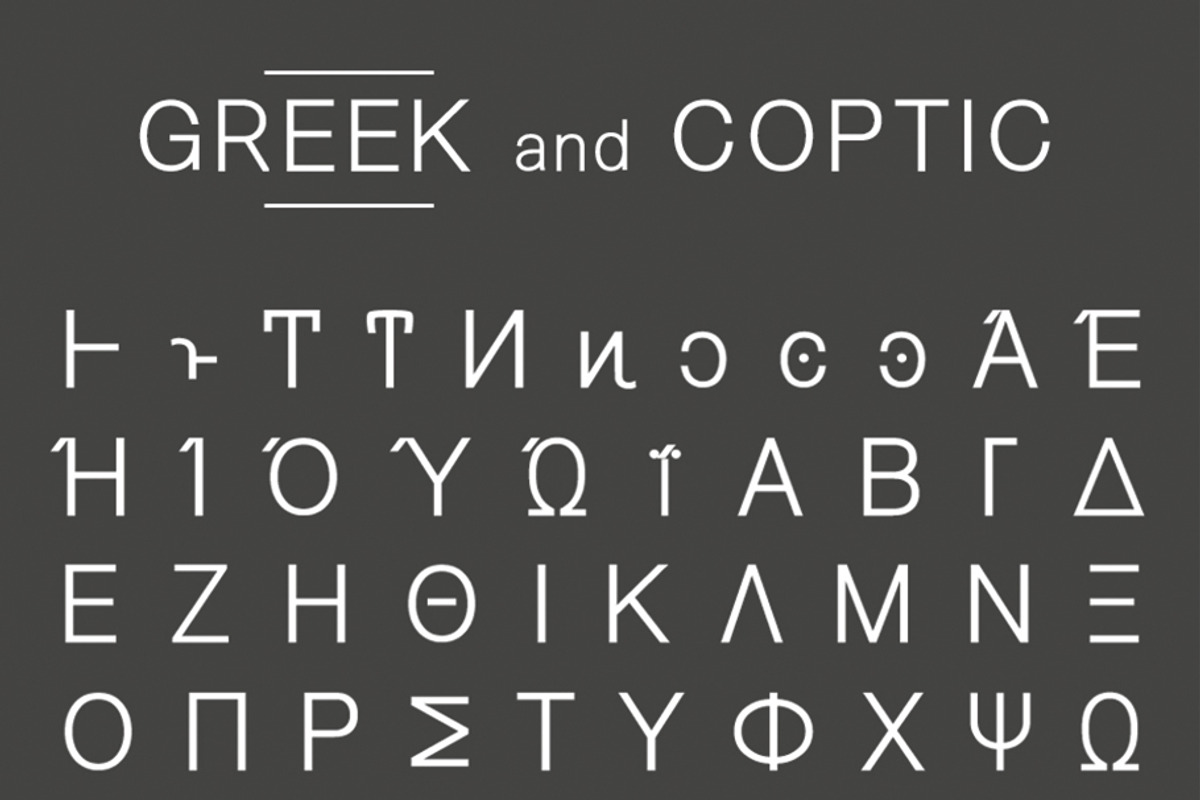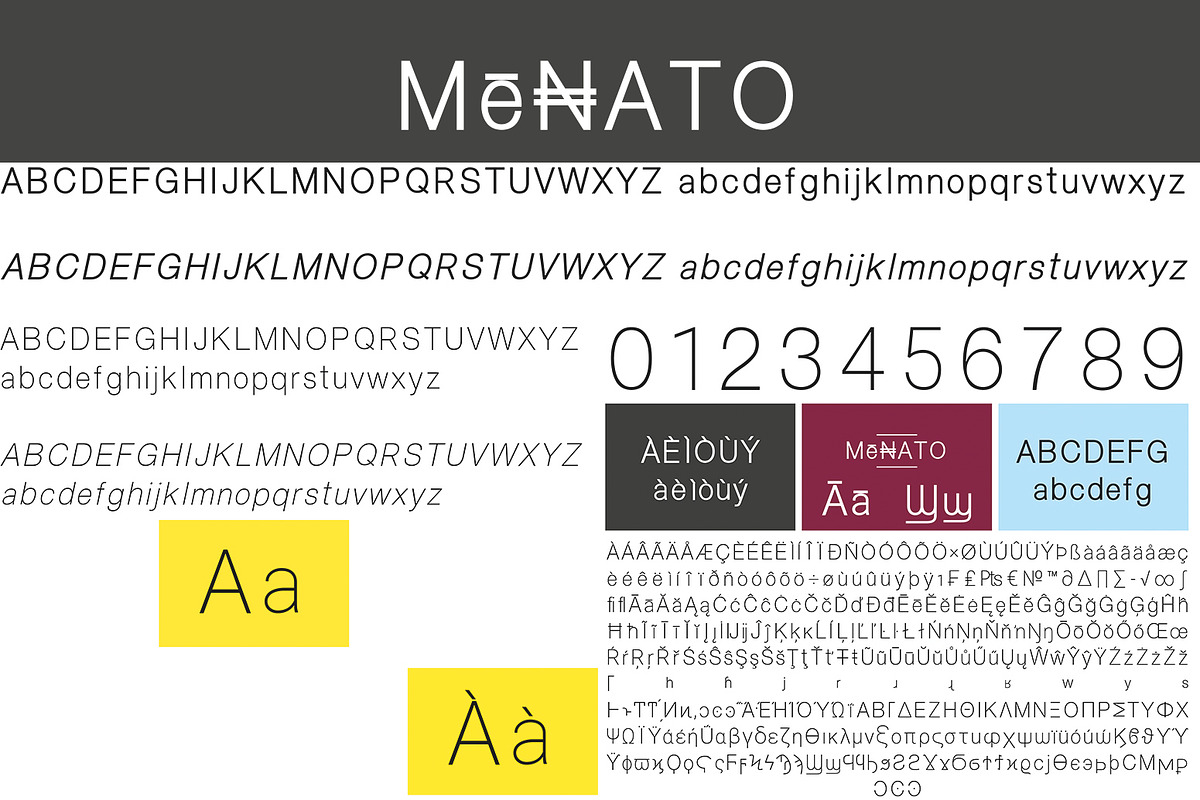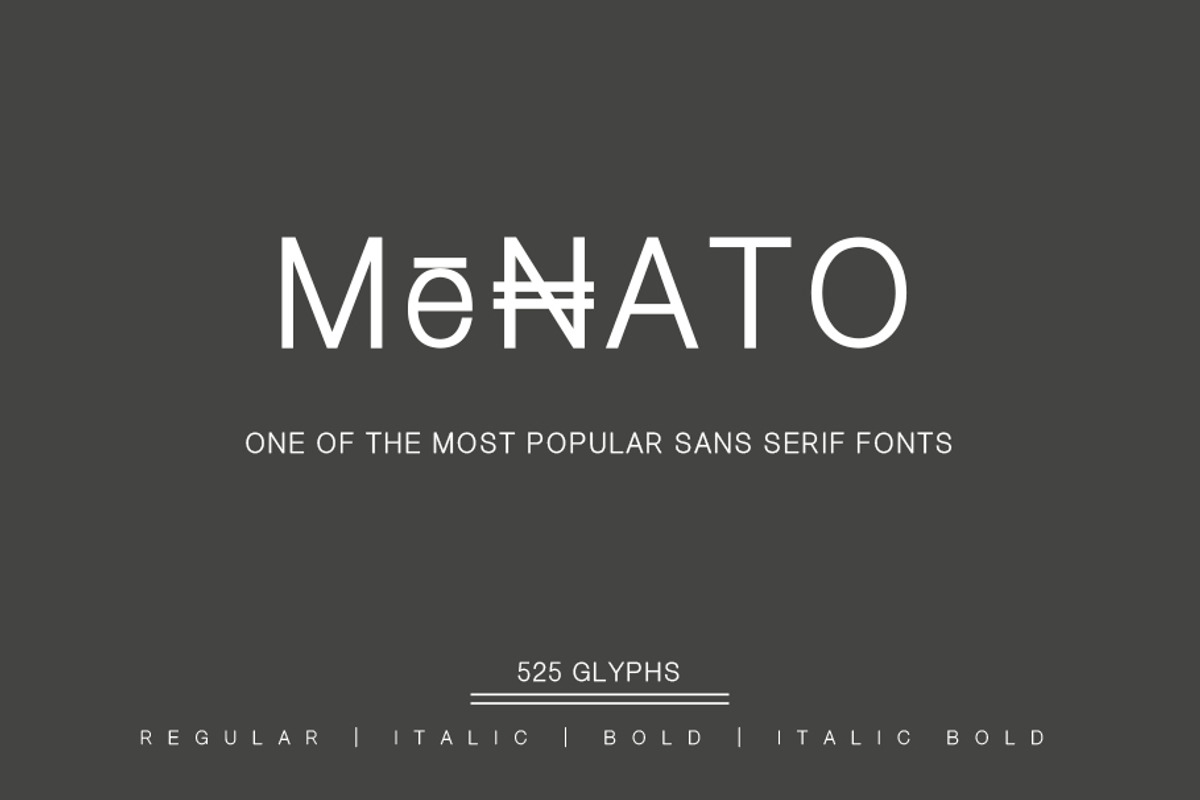
Menato
Menato is a sans serif all 525 Glyph with Regular, Italic, Bold, Italic Bold font. Exclusively available at Creative Market . The font is distributed in TrueType format including kerning and other features.
Mē₦ATO is one of the most popular sans serif fonts of mine. This is really one of the better font like Arial, Helvetica, Proxima Nova, Futura, and Calibri. Regular, Italic, Bold & Italic Bold avalable with English, Latin, Greek and Coptic (525 Glyphs). This font must be help you to make your design nicely. Flyer, Business Card, calendar etc any pre-press design; Label & Tag, Mood-Board for Garments Fashion; Office, Website, Mobile Apps etc Display - This font will be show your Massage or Text clearly to your audience.